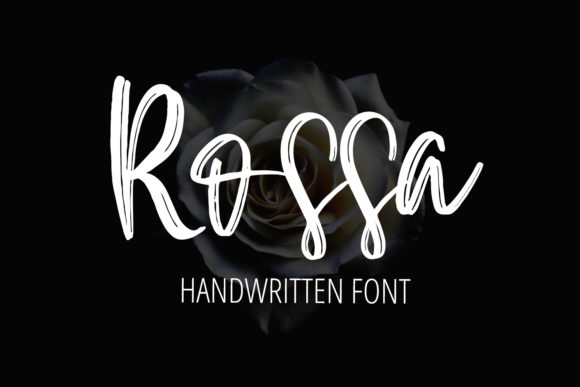
**Indulge in the Enchanting Embrace of Rossa: A Calligraphic Masterpiece**
Step into a world where elegance meets whimsy with Rossa, our captivating script font. Its enchanting swirls and delicate curves dance harmoniously, leaving an unforgettable impression on every stroke. Crafted with the utmost precision by the renowned Al Ghul, Rossa exudes a blend of sophistication and playfulness that cannot be replicated.
**A Versatile Canvas for Your Creative Vision**
With Rossa's unparalleled versatility, the possibilities for expression are endless. Whether you're crafting heartwarming wedding invitations or designing eye-popping logos, Rossa effortlessly adapts to your vision, adding a touch of magic to every project. Unleash your creativity on headings that demand attention, create personalized t-shirts that speak to your soul, and let your letterhead make a lasting first impression.
**Experience the Joy of Effortless Beauty**
Rossa's effortless beauty shines through in its myriad applications. Its graceful lines adorn posters that inspire and engage, while its playful charm brings life to badges and labels that demand to be noticed. Whether you're spreading the news or creating eye-catching signage, Rossa empowers you to convey your message with style and panache.
**The Perfect Font for a Festive New Year**
As the New Year approaches, embrace the warmth and joy of the season with Rossa. Its intricate strokes lend an air of celebration to greeting cards that convey your heartfelt wishes. Let the spirit of togetherness shine through invitations that spark anticipation for joyful gatherings. With Rossa, every New Year's creation becomes a cherished keepsake that captures the essence of hope and renewal.
**A Font that Touches the Heart**
Rossa is not merely a collection of letters; it's an embodiment of emotion and expression. Its gentle curves evoke a sense of nostalgia, while its lively swirls inspire a spirit of adventure. Whether you're crafting a heartfelt love letter or sharing a moment of inspiration, Rossa becomes an extension of your voice, conveying your messages with sincerity and grace.
**Indulge in the Rossa Experience**
Immerse yourself in the enchanting world of Rossa and discover the endless possibilities it holds. Its captivating charm and unparalleled versatility make it a must-have for any creative soul. Embark on a journey of artistic expression with Rossa by your side, where every stroke tells a captivating story. Let the magic of Rossa ignite your imagination and elevate your creations to new heights of beauty and impact.